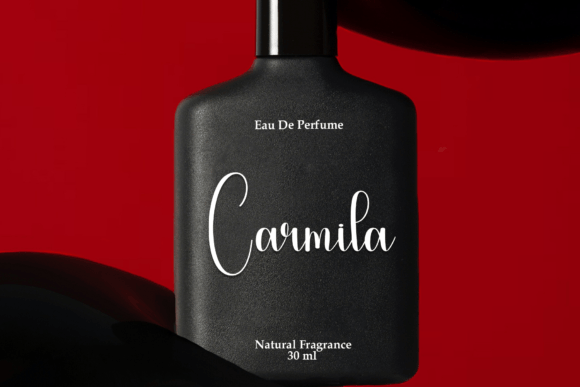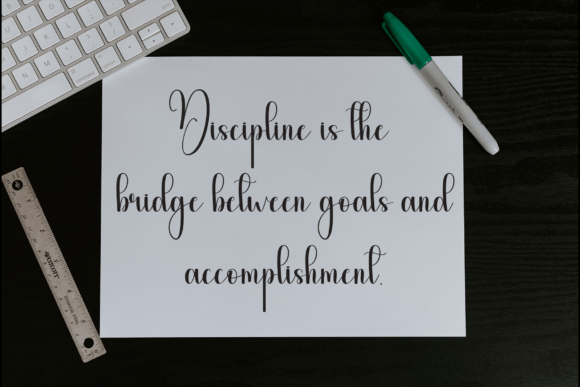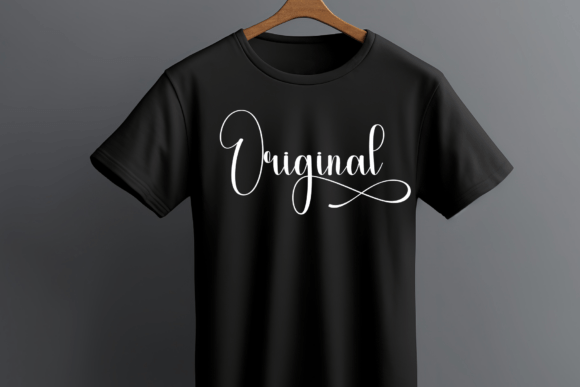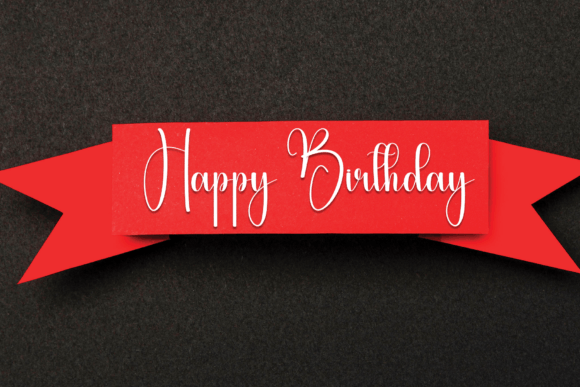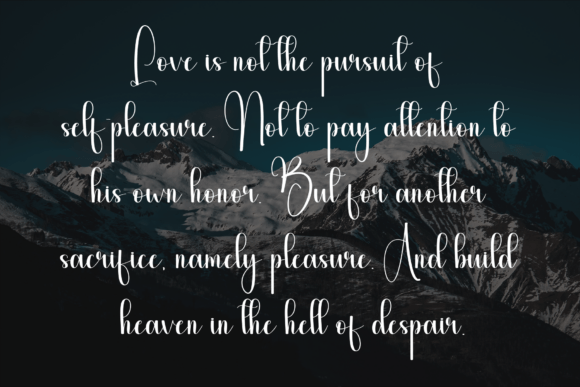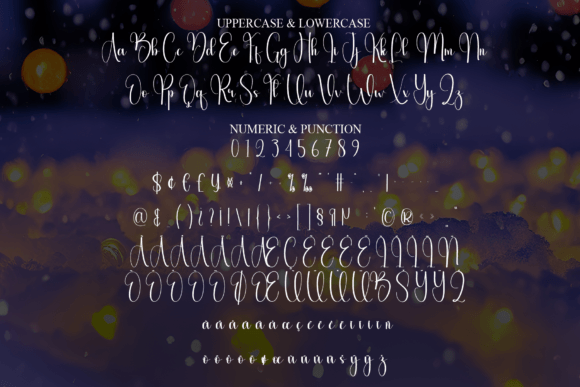
Introduction to Lightsnow Font Font
Fonts play a crucial role in design, and the Lightsnow Font font is a typeface that brings both character and versatility to any project. Whether you’re working on a branding project, a website, or a print design, the Lightsnow Font font offers a unique style that can elevate your work.
Introducing a delightfully charming handwritten display font – a blend of sweetness and friendliness.
Perfectly tailored for whimsical wedding invitations or creative cards, its endearing aesthetics effortlessly adds a spark of fun to any design narrative Draw upon its playful magic to breathe life into your storytelling and render an enchanting touch to your creations.
Key Features of Lightsnow Font Font
Why Choose Lightsnow Font Font?
The Lightsnow Font font is more than just a typeface – it’s a design tool that helps you communicate your message with style and clarity. Its unique character set and versatile design make it suitable for a wide range of applications, from elegant invitations to bold headlines.
With its carefully crafted letterforms and balanced proportions, the Lightsnow Font font ensures readability and visual appeal across all mediums.
What makes Lightsnow Font font special?
The Lightsnow Font font stands out with its unique design, exceptional readability, and versatility across various design applications.